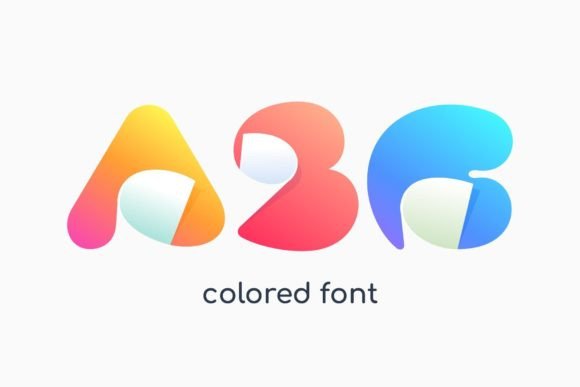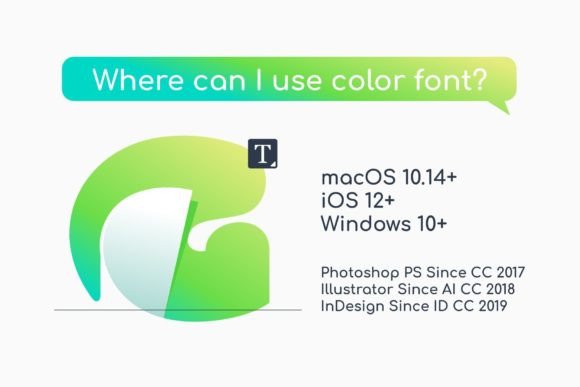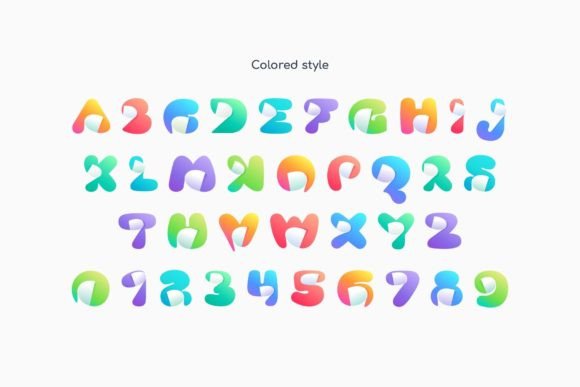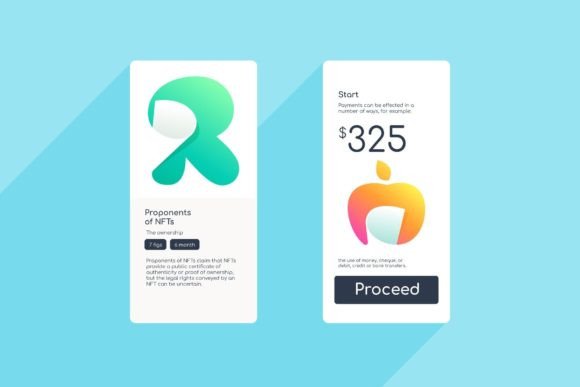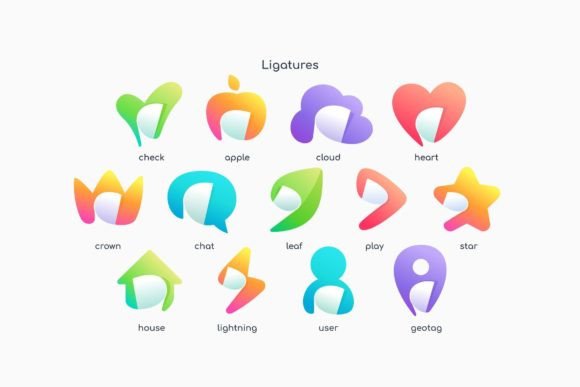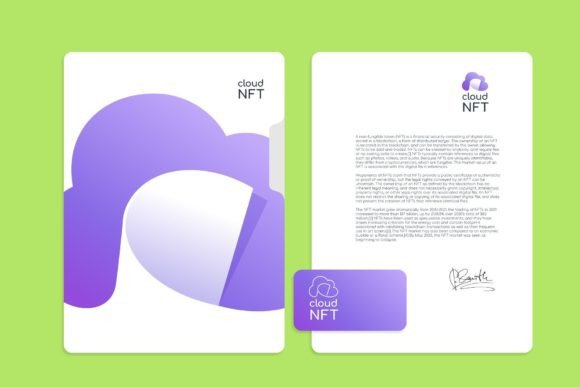
Introducing Curled Corner Font: Add a Playful Touch to Your Designs
Are you looking for a font that can add a dash of fun and personality to your designs? Look no further than Curled Corner Font! This vibrant and chunky lettered font is sure to bring your creations to life. In this article, we’ll dive into the features and benefits of Curled Corner Font, as well as provide tips on how to use it in your designs.
What is Curled Corner Font?
Curled Corner Font is a color font, specifically an Opentype-SVG font, which means it’s a cutting-edge font technology that allows for colorful and intricate designs. This font is perfect for designers and crafters who want to add a playful touch to their work. With its bold and bubbly letters, Curled Corner Font is sure to make a statement in any design.
Benefits of Using Curled Corner Font
So, why should you choose Curled Corner Font for your designs? Here are just a few benefits:
- Adds personality to your designs: With its playful and chunky letters, Curled Corner Font is sure to add a touch of personality to your designs.
- Color font technology: Curled Corner Font uses the latest color font technology, allowing for vibrant and intricate designs.
- Perfect for crafters and designers: Whether you’re a professional designer or a crafter, Curled Corner Font is perfect for anyone looking to add a playful touch to their work.
Here are a few tips and tricks to help you get the most out of Curled Corner Font:
- Use it for headings and titles: Curled Corner Font is perfect for headings and titles, adding a playful touch to your designs.
- Experiment with different colors: With Curled Corner Font, you can experiment with different colors to create unique and eye-catching designs.
- Pair it with other fonts: Try pairing Curled Corner Font with other fonts to create interesting and dynamic designs.
In conclusion, Curled Corner Font is a fun and bubbly color font that’s perfect for designers and crafters looking to add a playful touch to their work. With its bold and chunky letters, compatibility with popular design software, and color font technology, Curled Corner Font is sure to bring your designs to life. So why not give it a try and see the difference it can make?